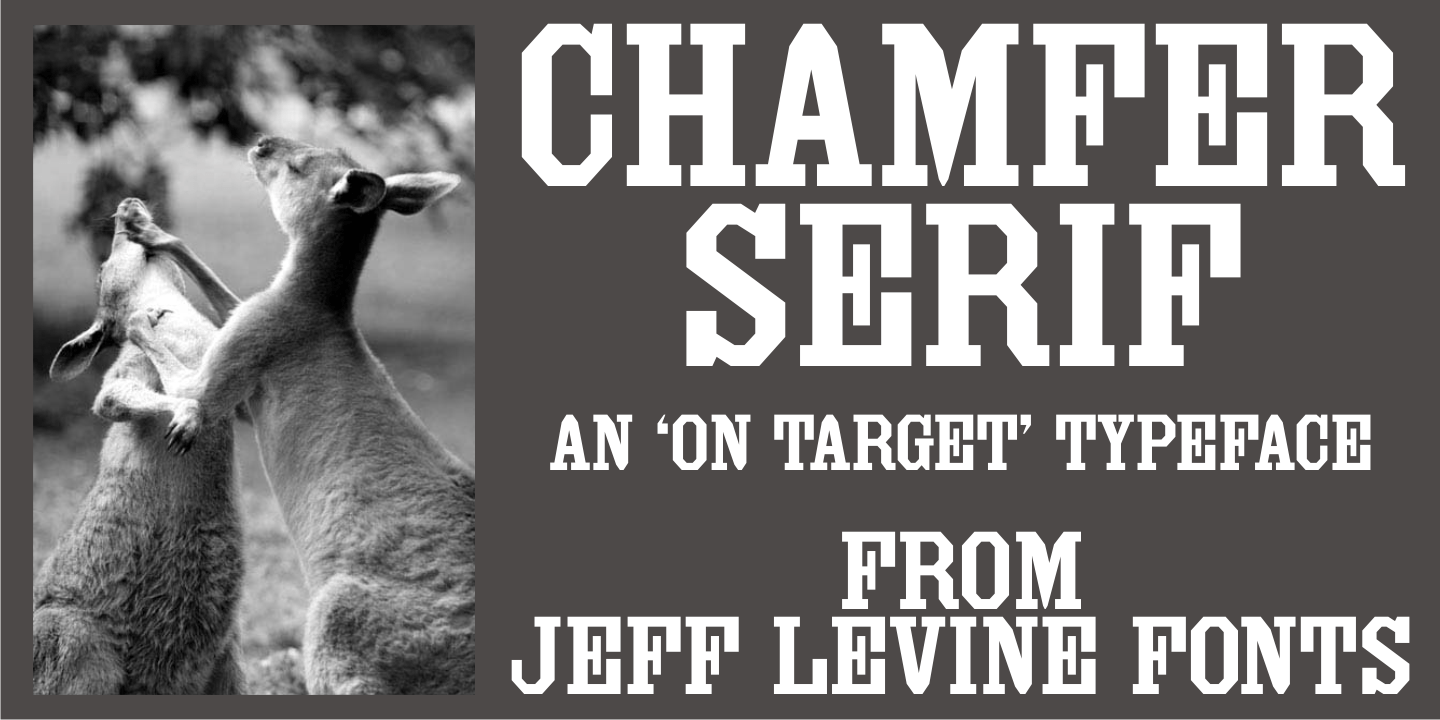
Chamfer Serif
A set of vintage wood type printing blocks yielded the alphabet which was to become Chamfer Serif JNL. With its heavy vertical serifs and interesting character shapes, the design is unique when compared to the more familiar wood type offerings of the past.